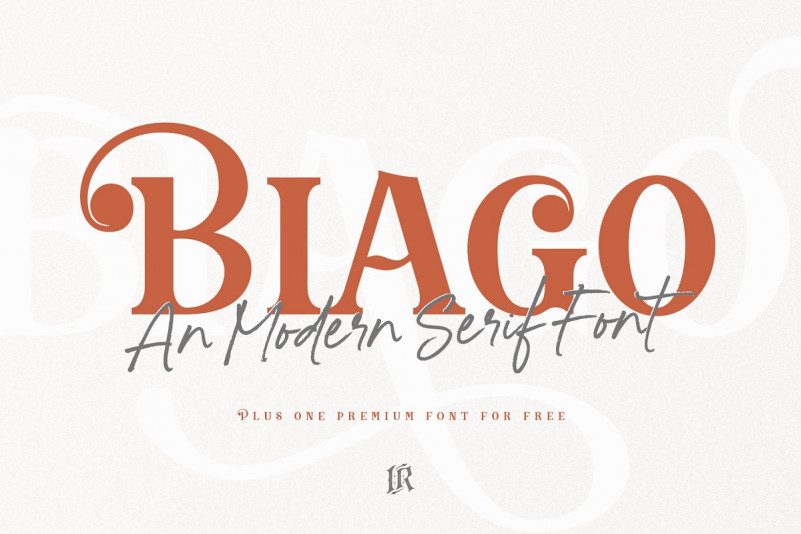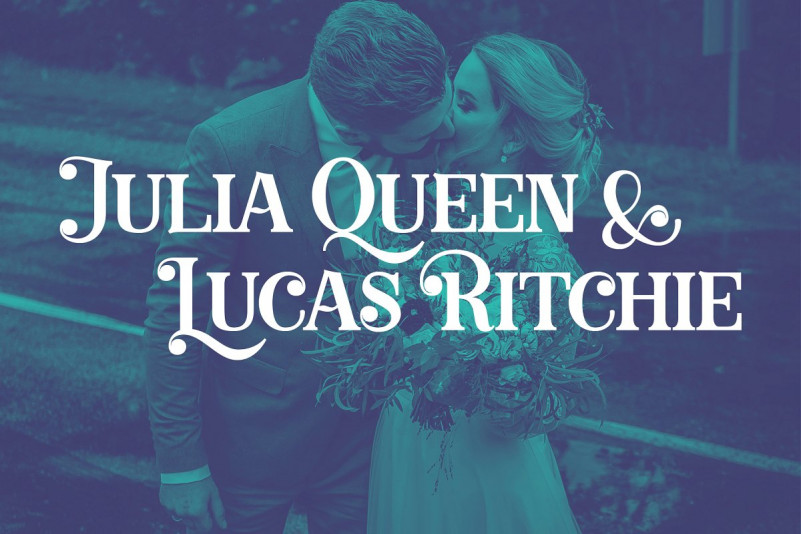
Biago Font + BONUS Font
Give your design a fresh look with the new elegant serif font Biago. A lot of stylish alternates will give you a lot of variations for use. As a bonus I attach premium font The Brightside with which they make a great pair – FOR FREE. Biago Font is great for website headings, posters, restaurants, post cards, magazines and so on. Try to use it in your own business.